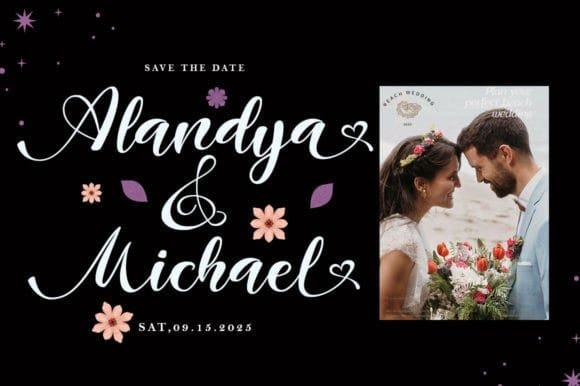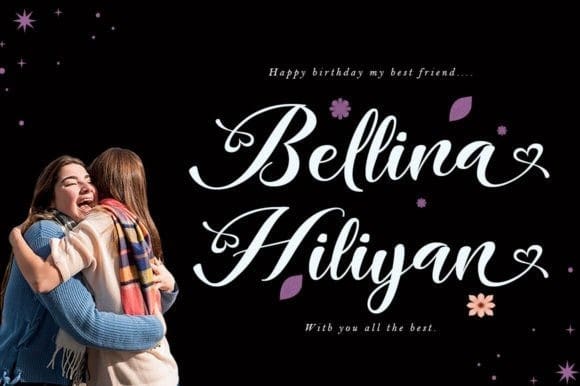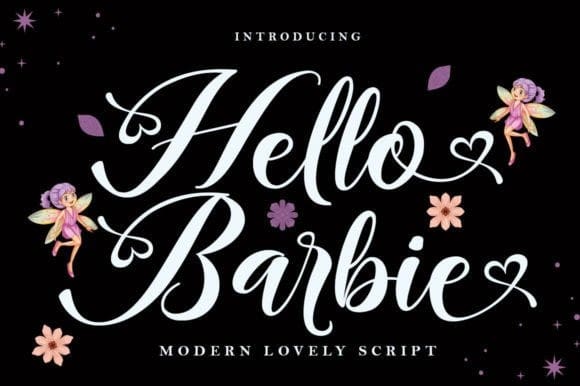
Hello Barbie Font
Hello Barbie Font is a dazzling script font that exudes elegance and charm. With its fluid strokes and intricate details, it captivates the eye and adds a touch of sophistication to any design project. Perfect for invitations, branding, and headlines, Hello Barbie brings a sense of luxury and style to your creations.